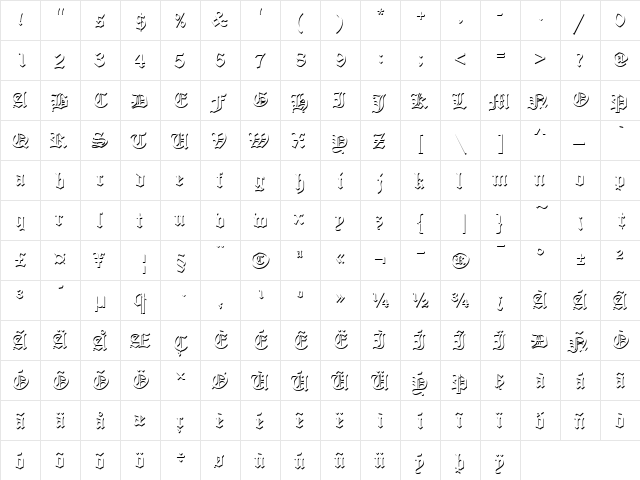
Old English Only Shadow D Regular
Design Context for Old English Only Shadow D Typeface
Old English Only Shadow D brings ornamental detail and strong personality to headlines and identities, where visual impact matters more than quiet functionality.
Font Pairing: Pair with a clean neutral sans-serif for body copy to let Old English Only Shadow D's character lead without overwhelming the composition.
Pro Tip: Use Old English Only Shadow D exclusively at display sizes — it was designed to be seen, not read at length. Let a neutral companion handle body copy.